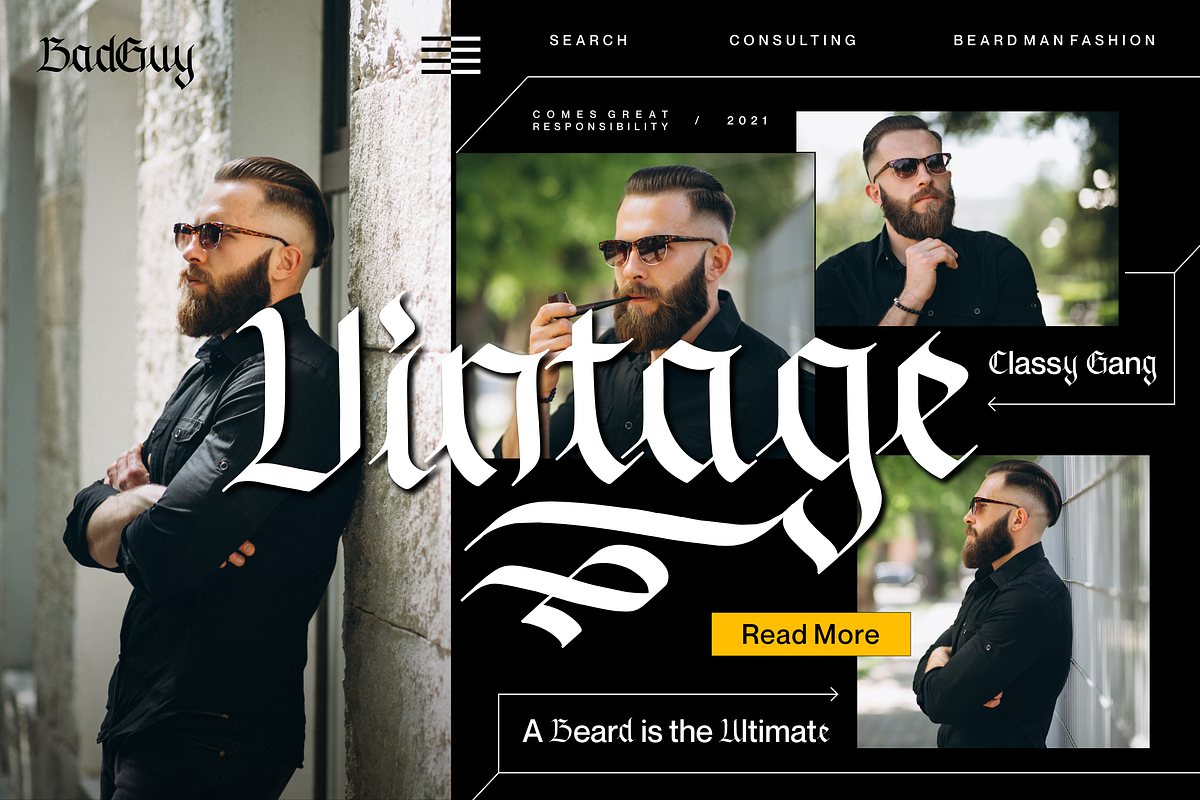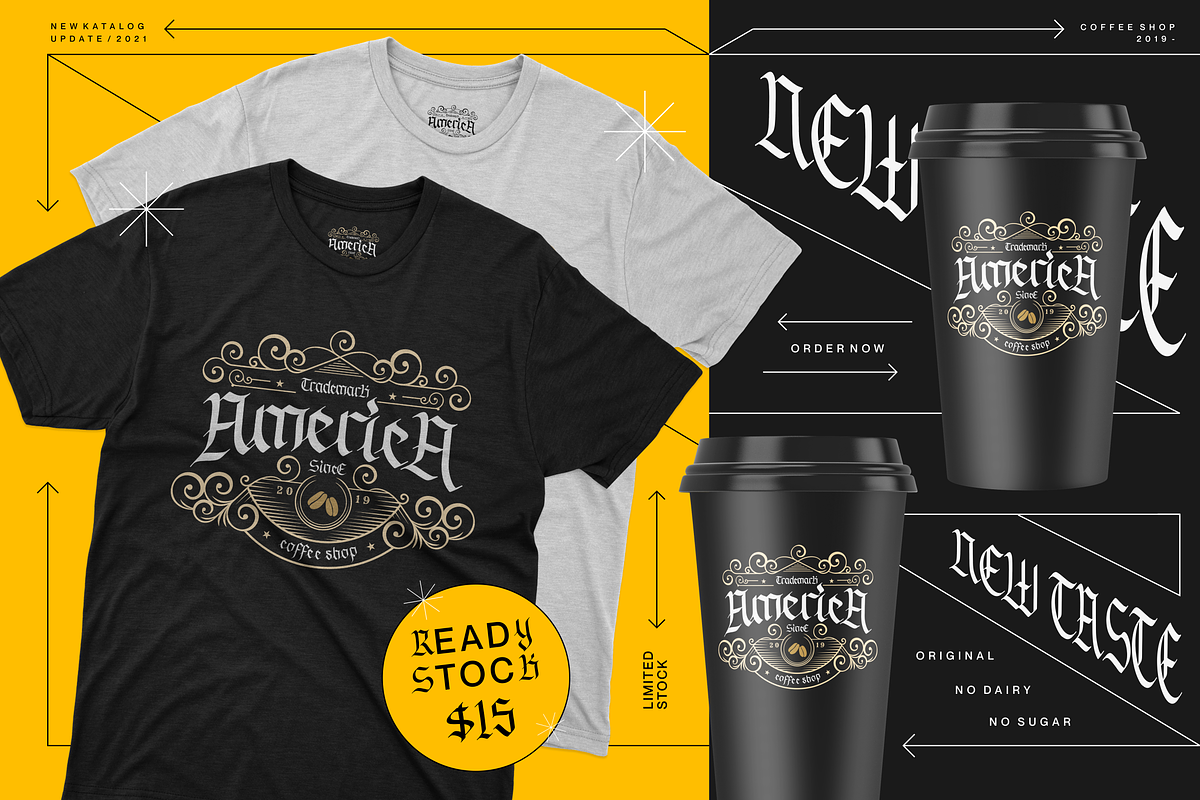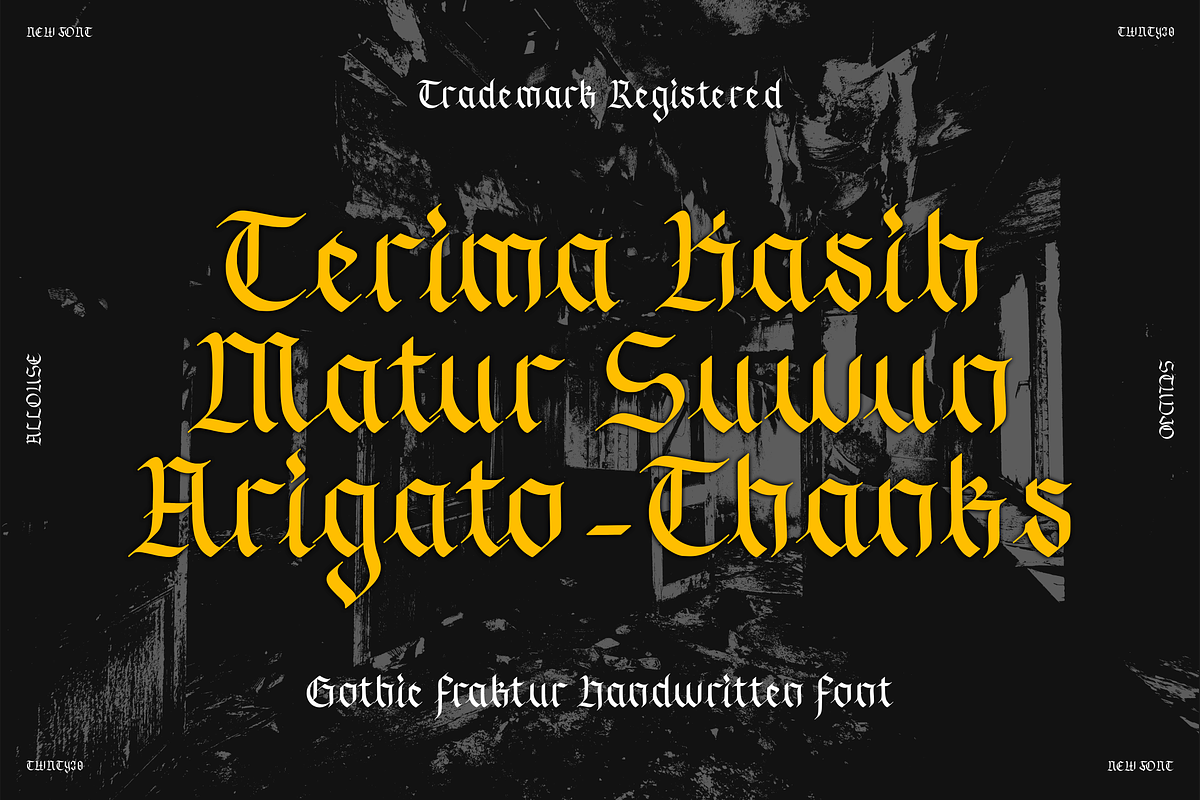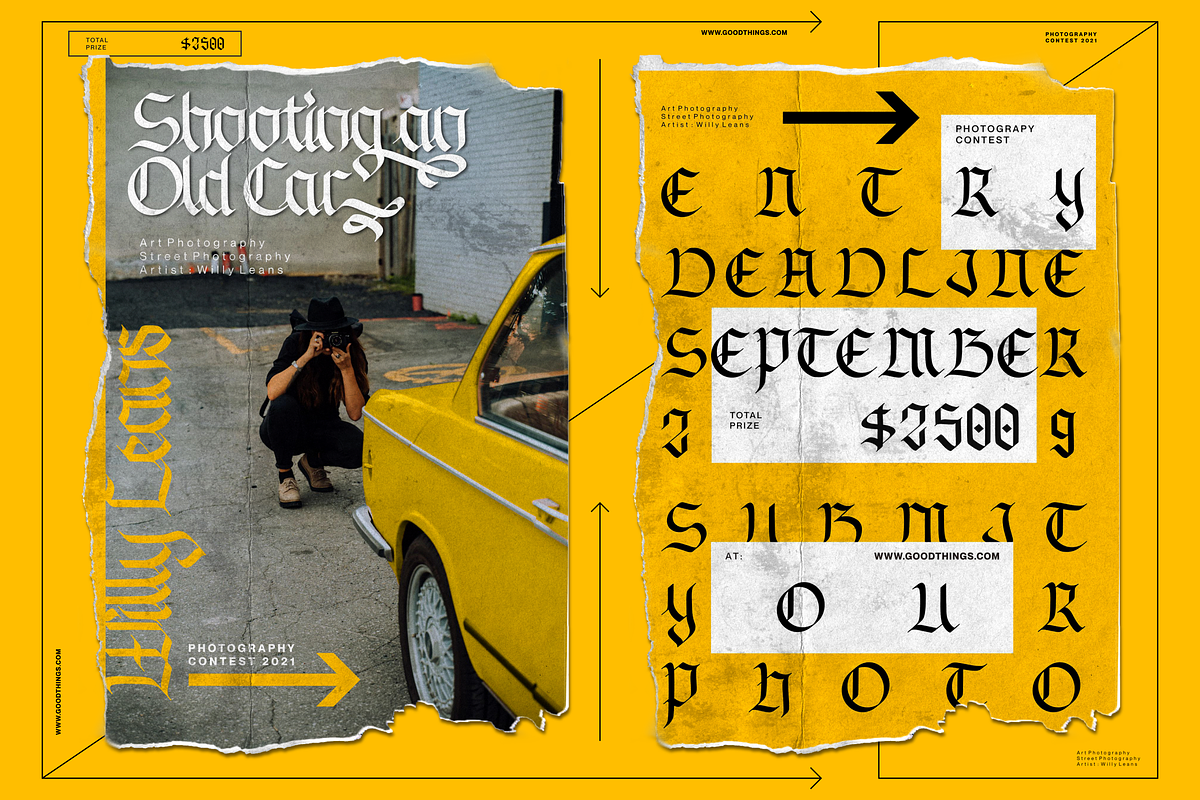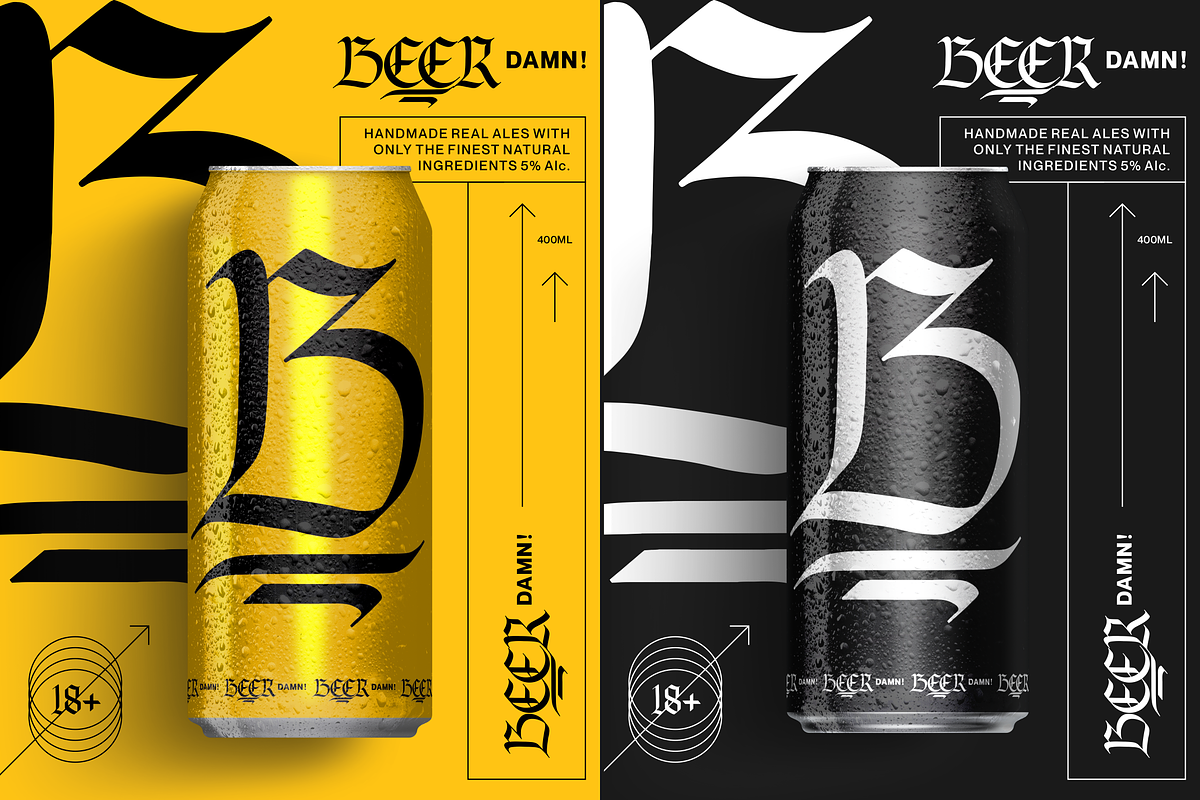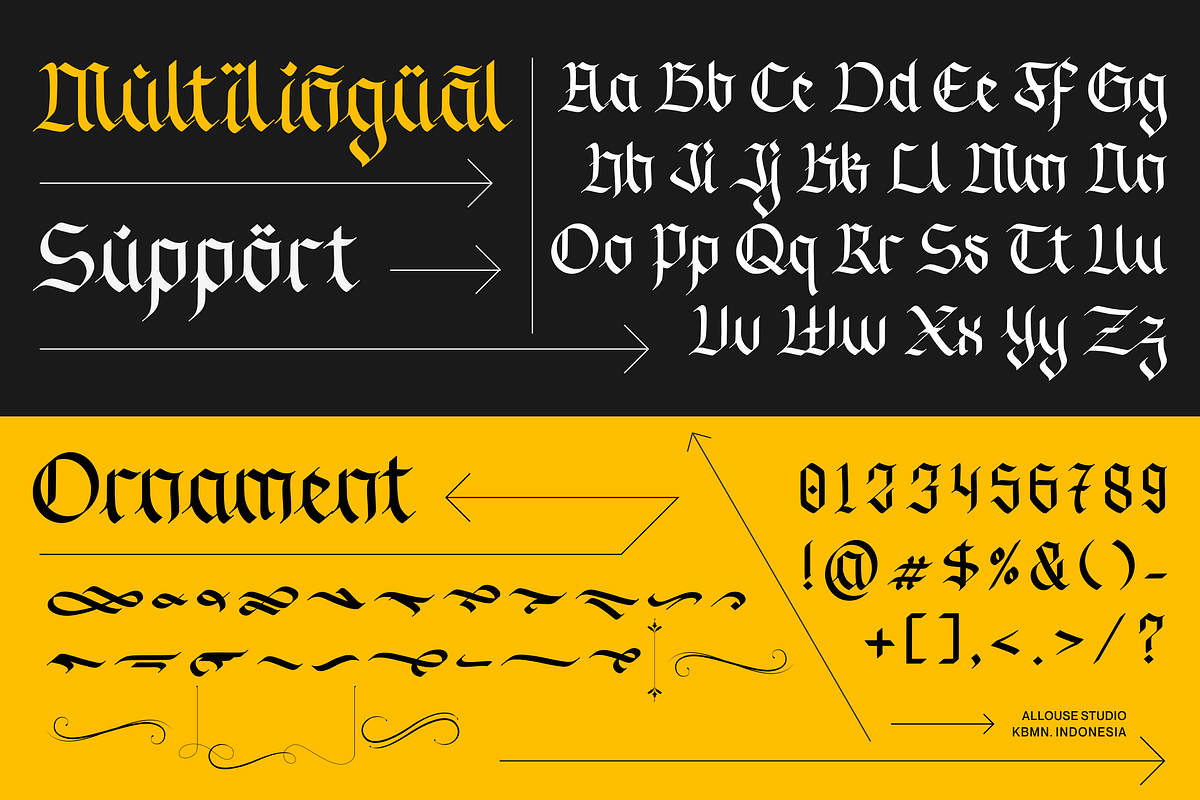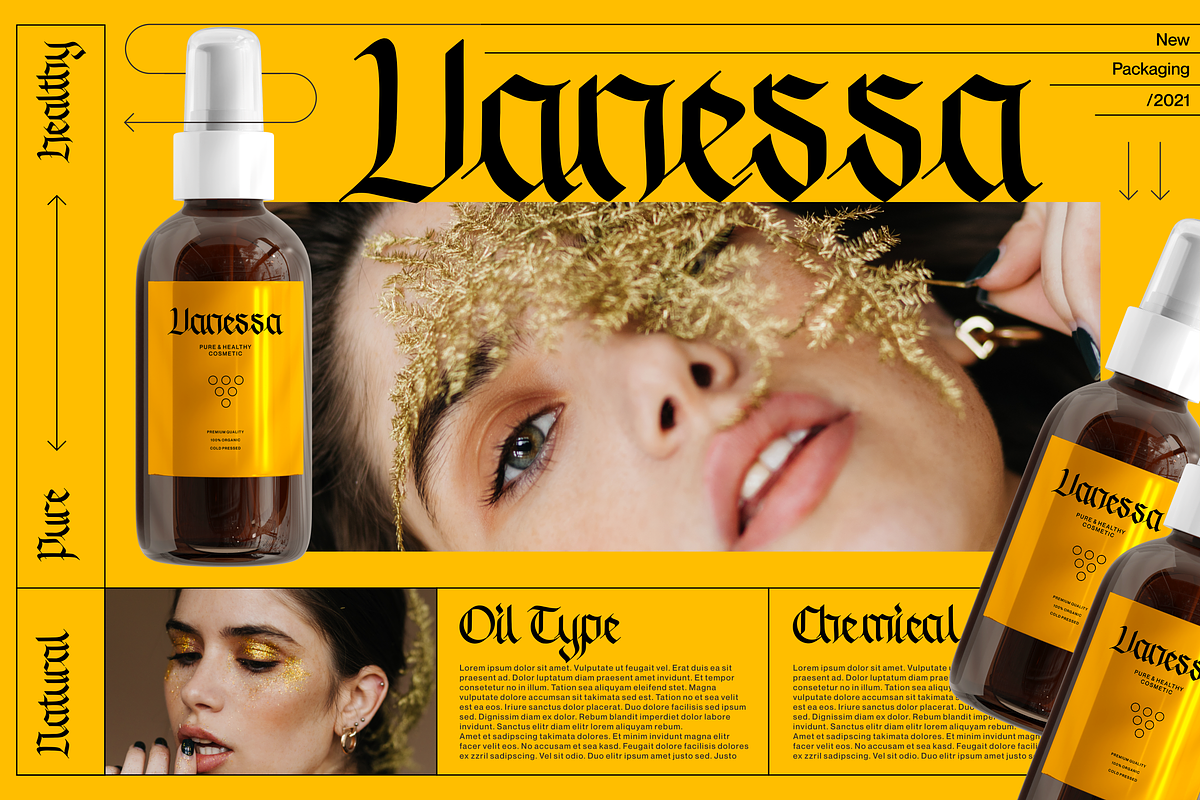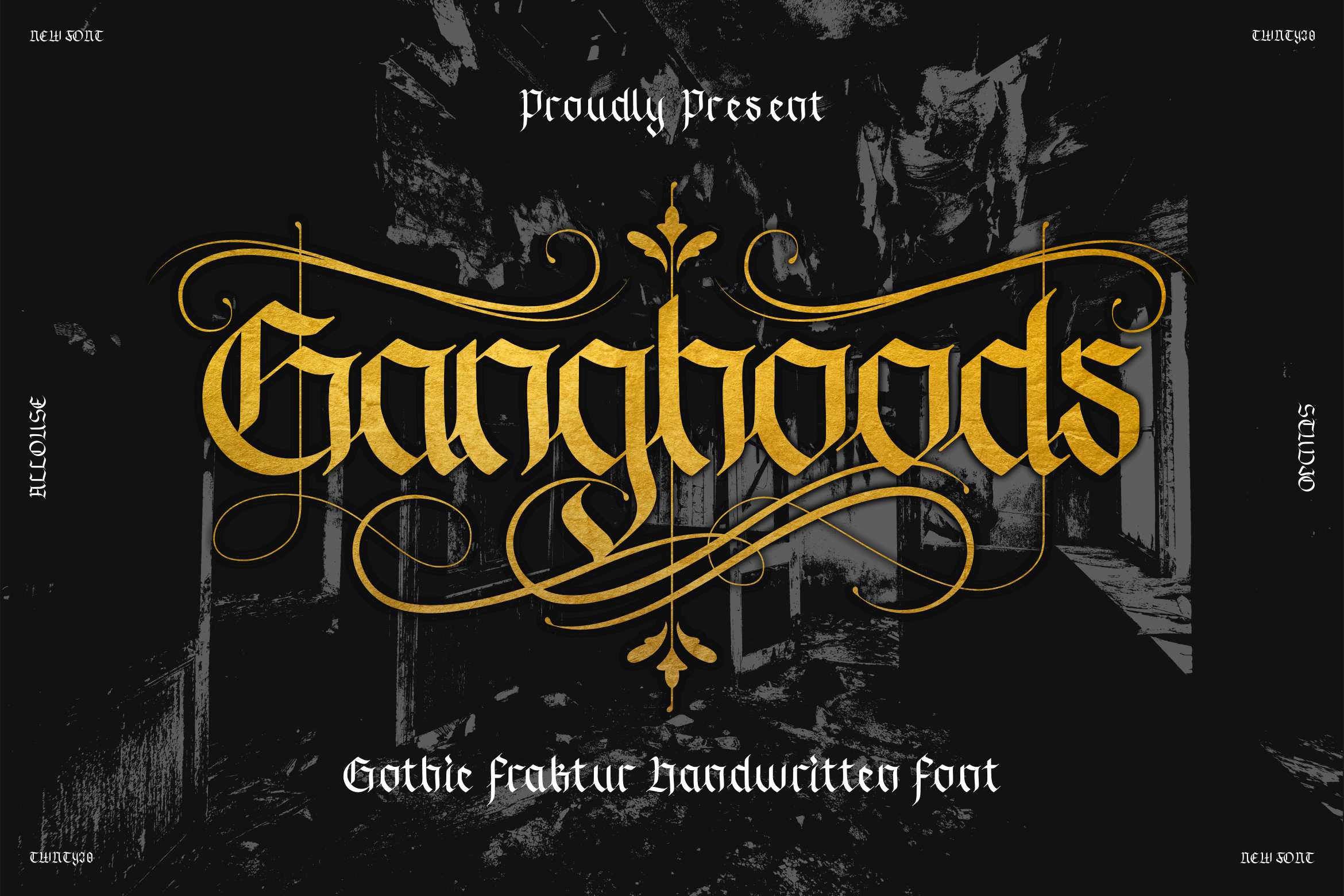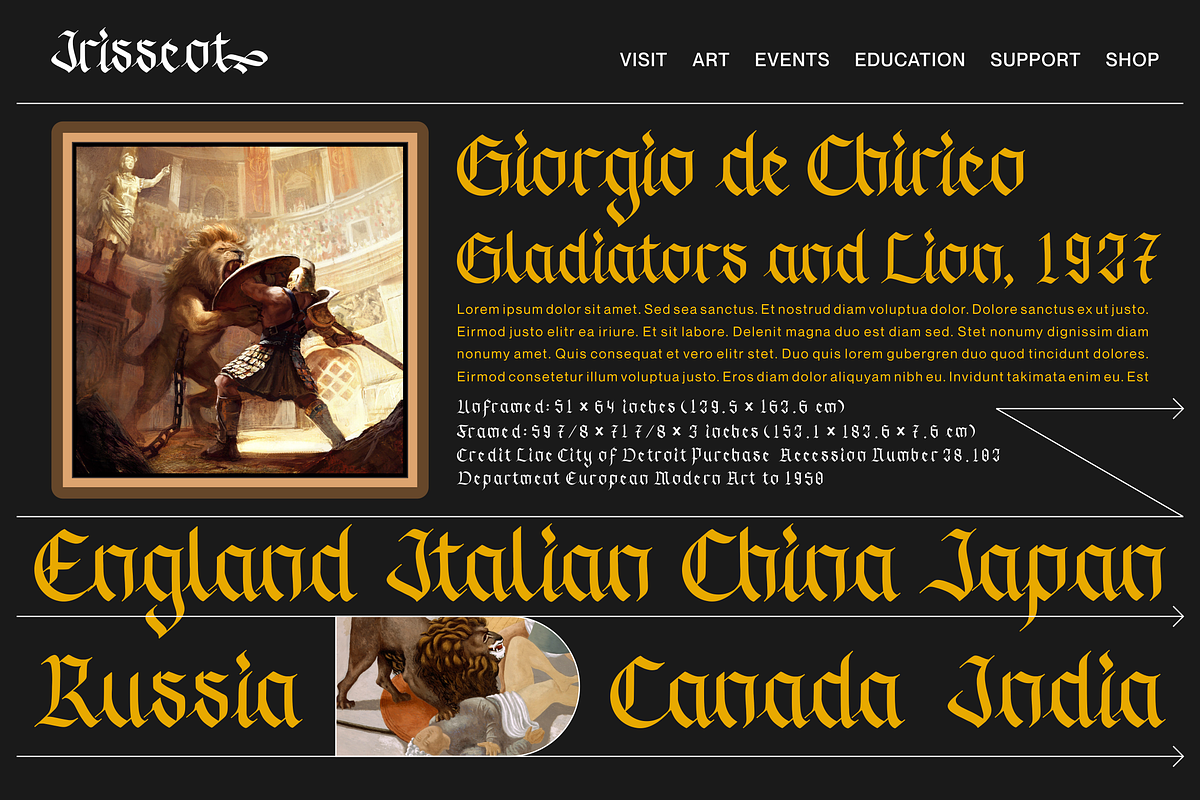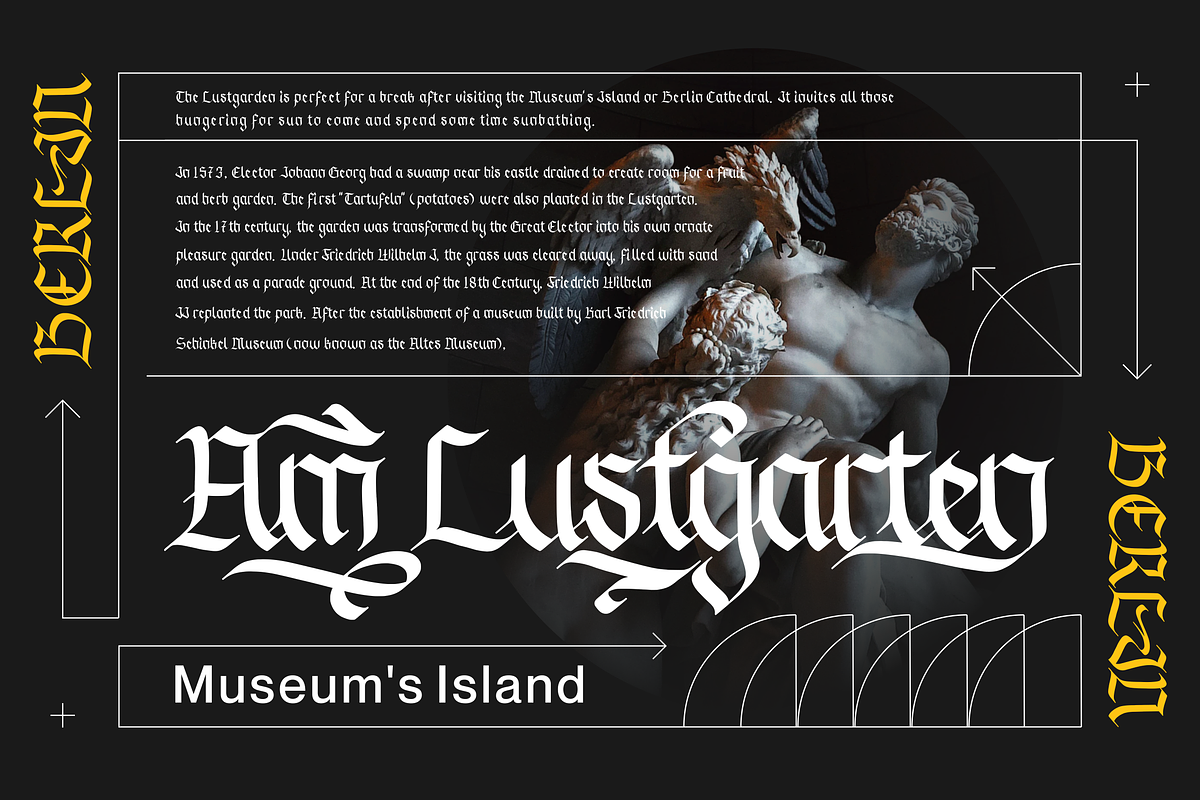
Ganghoods Font
Proudly Present, Ganghoods.
Ganghoods is a Gothic Fraktur Handwritten Font.
Ganghoods is perfect for product packaging, branding project, megazine, social media, wedding, or just used to express words above the background.